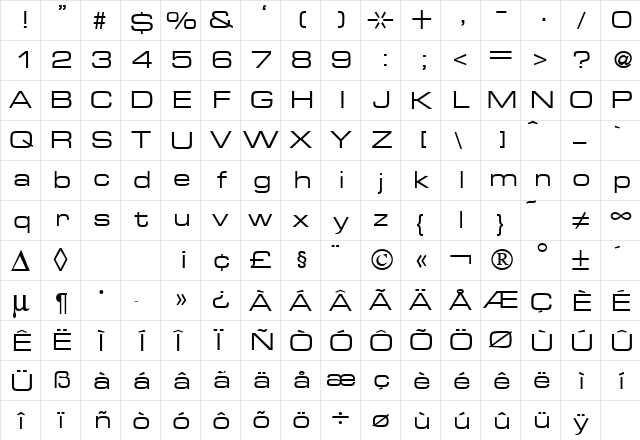
EurasiaExtended Regular Font Preview
EurasiaExtended Regular
Design Context for EurasiaExtended Typeface
EurasiaExtended is a composed and adaptable typeface that performs quietly and consistently across a wide range of design contexts.